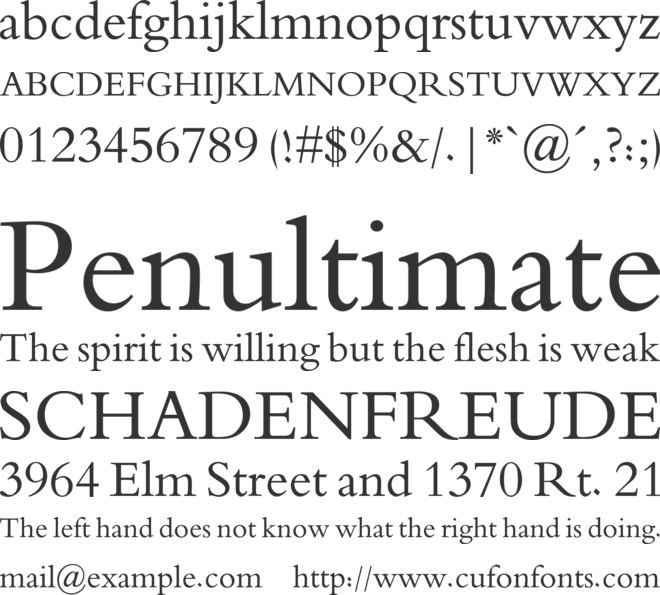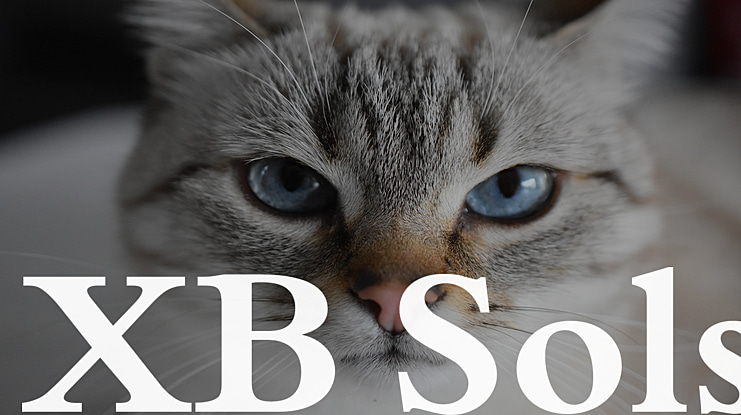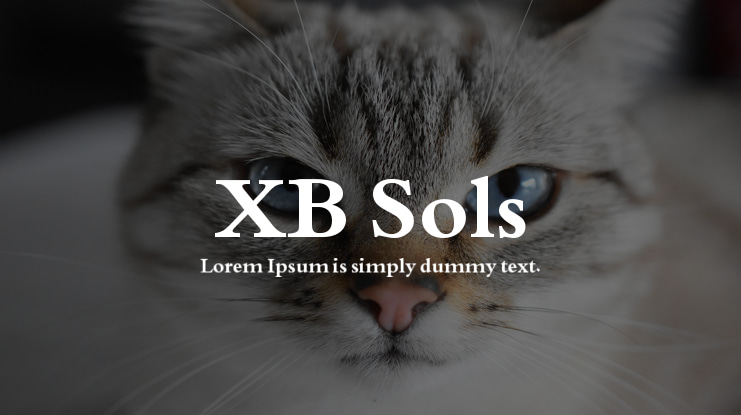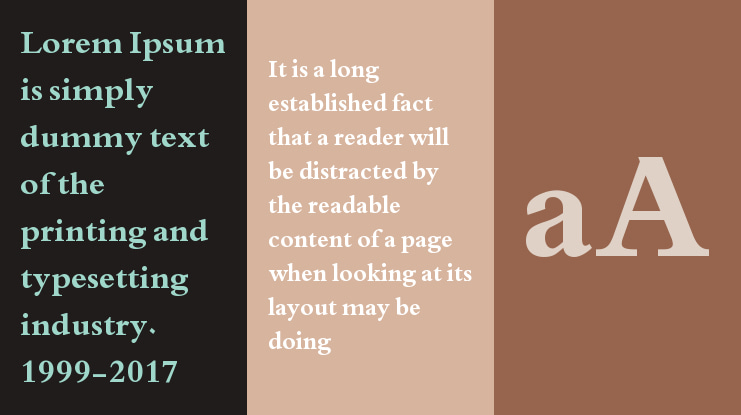
XB Sols Font Family
X Series 2 fonts are built on freely available fonts and extended to support Persian, Arabic, Urdu, Pashto, Dari, Uzbek, Kurdish, Uighur, old Turkish (Ottoman) and modern Turkish (Roman).